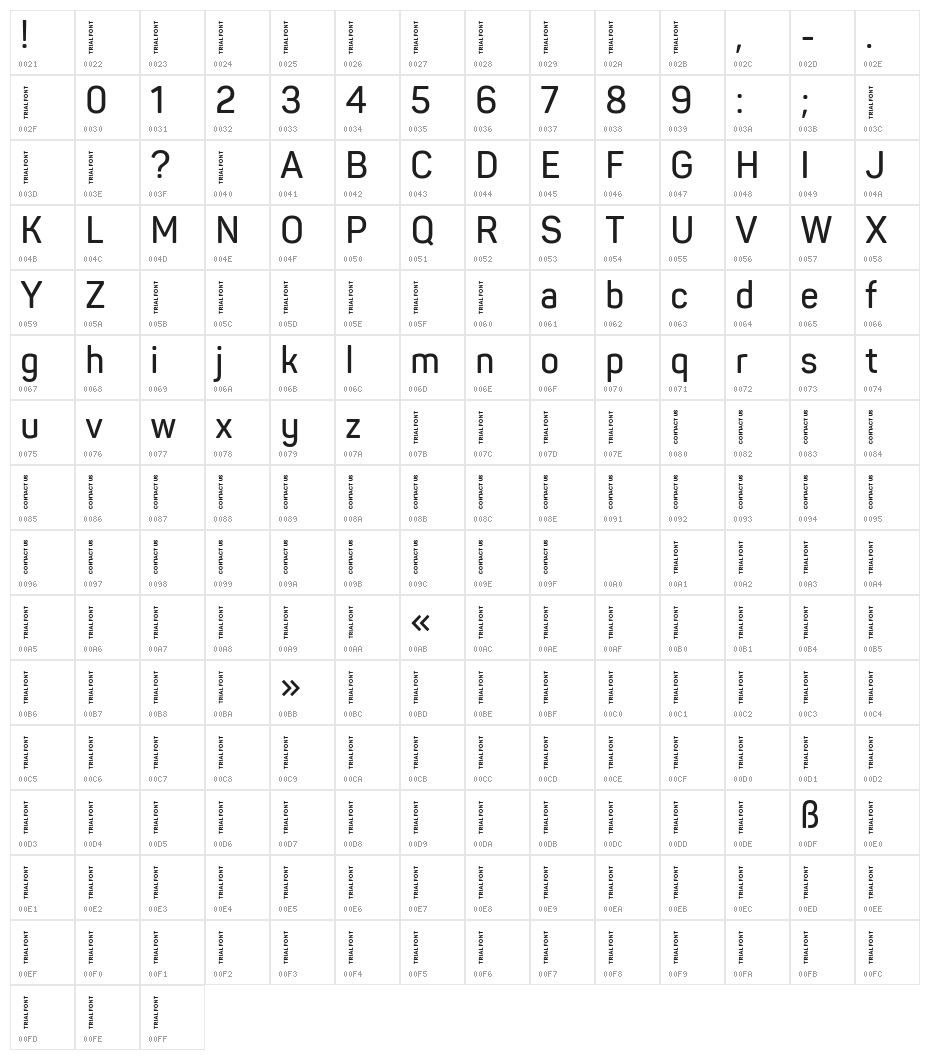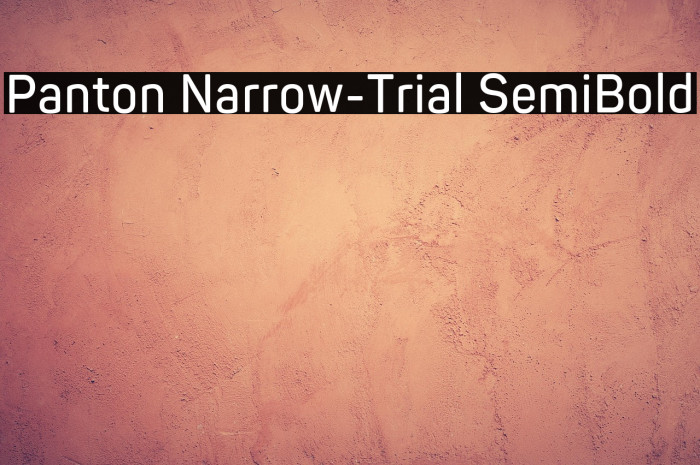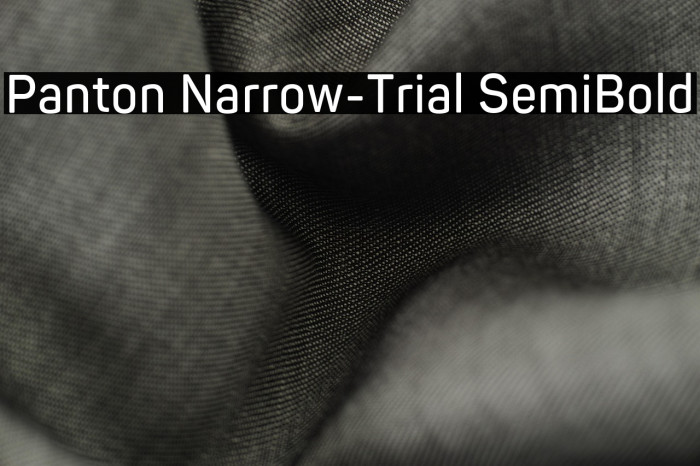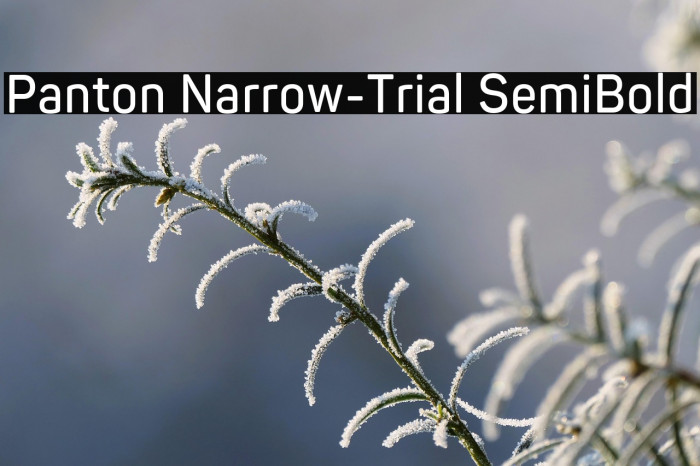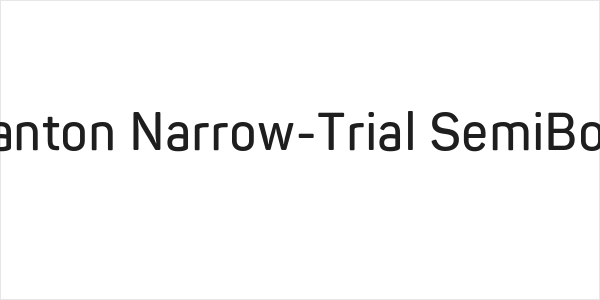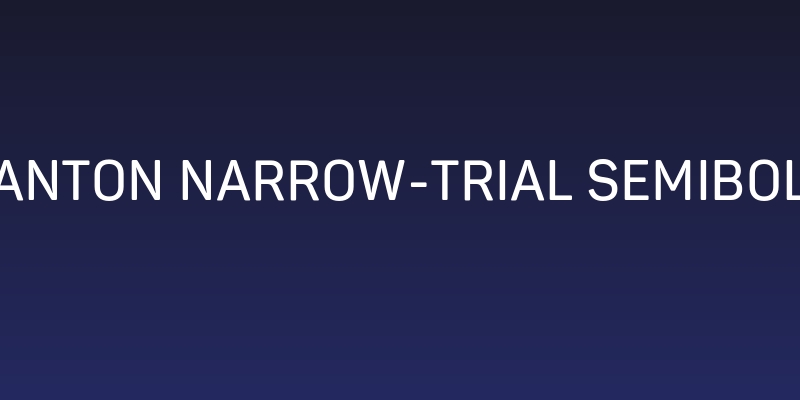
Panton Narrow-Trial SemiBold Font
Panton Narrow-Trial SemiBold Description
This font features a clean, modern sans-serif style with a narrow width, making it suitable for a variety of design applications. The characters are well-proportioned with a consistent stroke width, providing a balanced and harmonious appearance. The uppercase and lowercase letters are distinct and legible, while the numerals are clear and easy to read. Special characters are included, maintaining the font's cohesive look. Its semi-bold weight adds emphasis without overwhelming the design, making it versatile for both digital and print media.